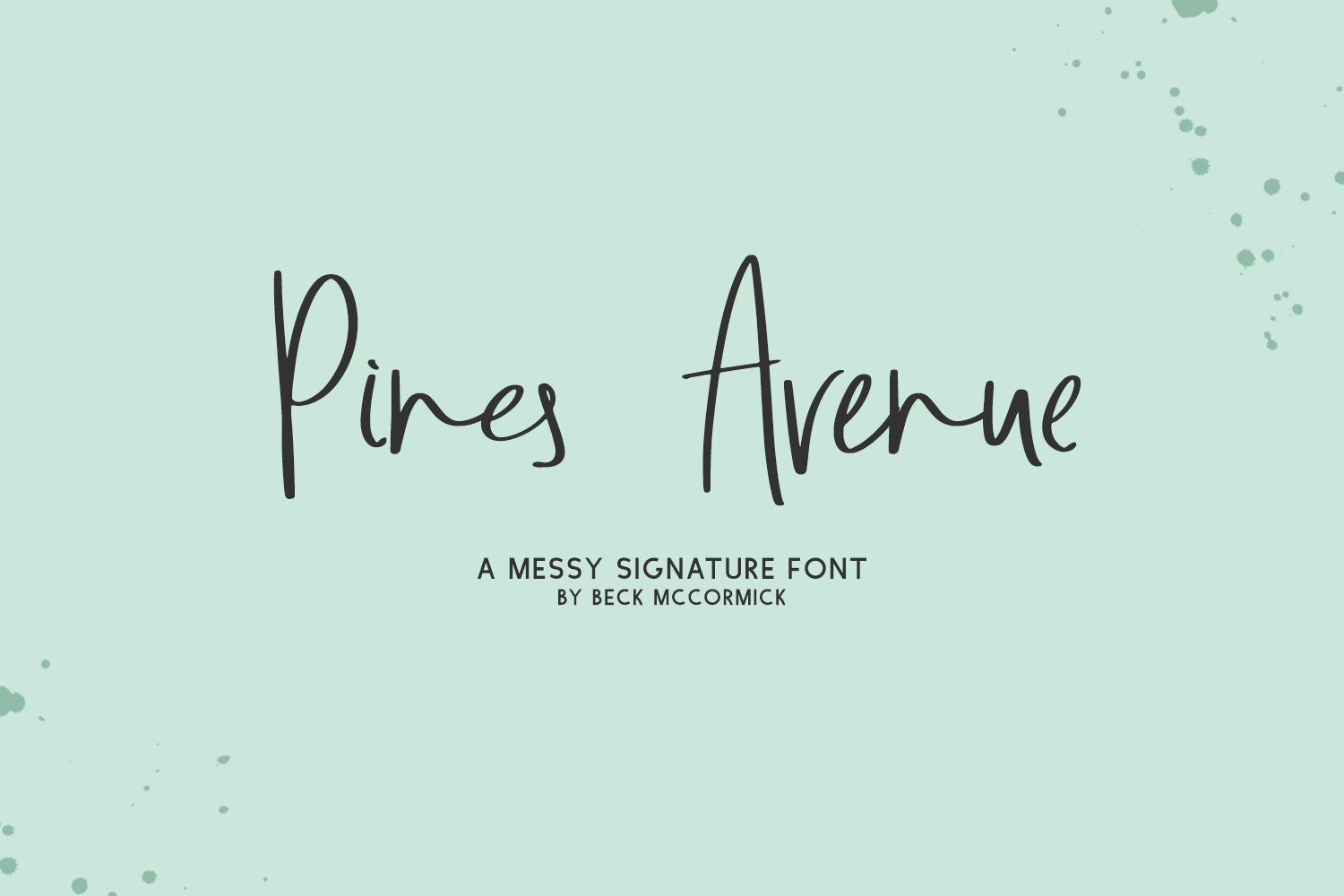
Pines Avenue Script
Introducing Pines Avenue, a messy handwriting font with alternates & ligatures. Pines Avenue is modern and moody.
- 44 alternates
- 44 ligatures - aa, an, and, ax, ay, bb, cc, ck, dd (x2), ee, er, es, ff, fo, fu, gg, hh, ii, jj, kk, ll, mb, mm, my, nn, ol, oo, pi, pp, qq, qu, ra, rr, ss, th, tt, ui, uu, vv, ww, xx, yy, zz